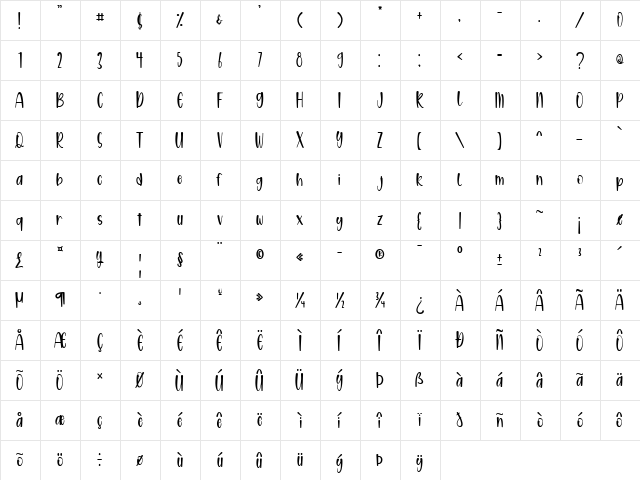
Bravocado Regular
| Designer | Arief Tri Sulistiyono |
Design Context for Bravocado Typeface
Bravocado is a composed and adaptable typeface that performs quietly and consistently across a wide range of design contexts.